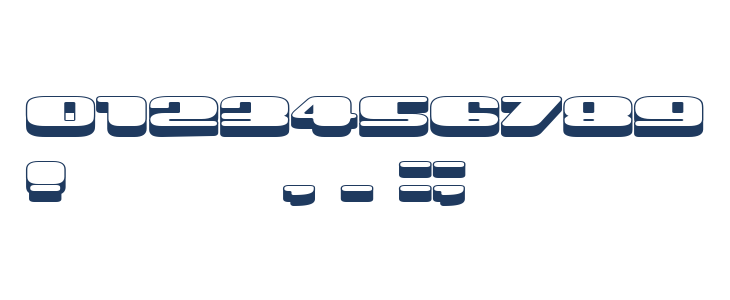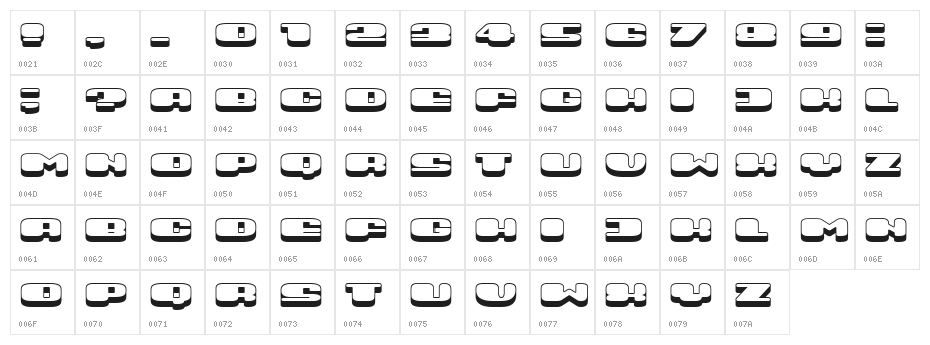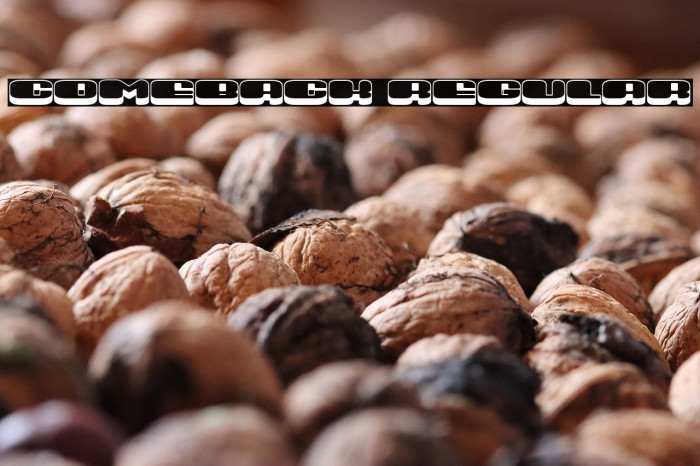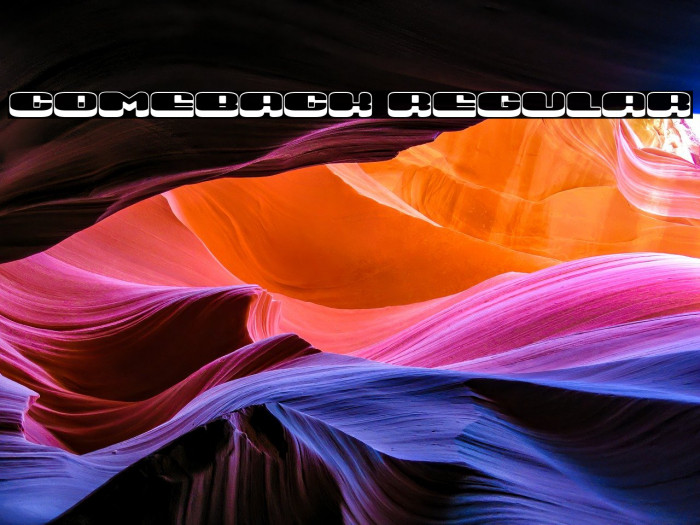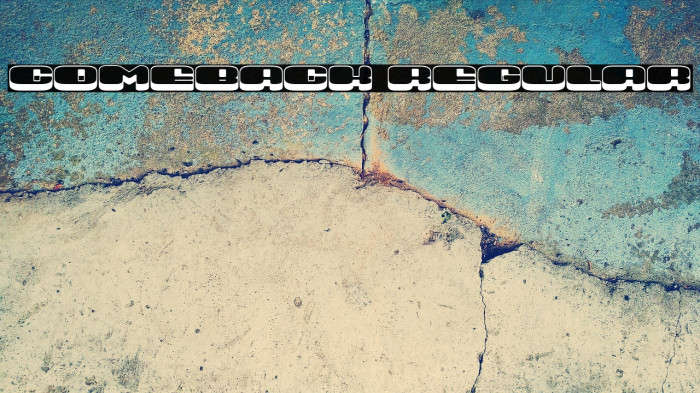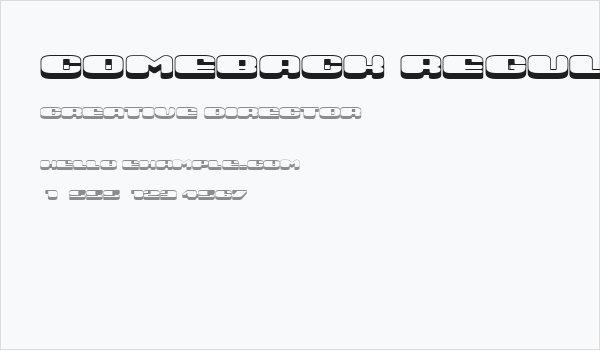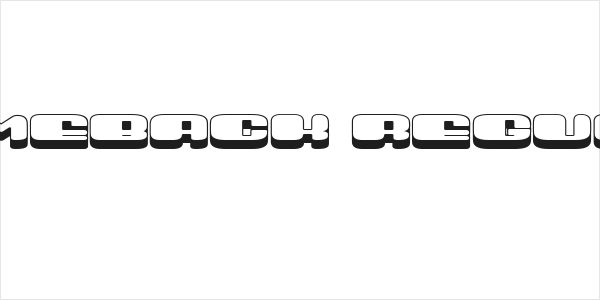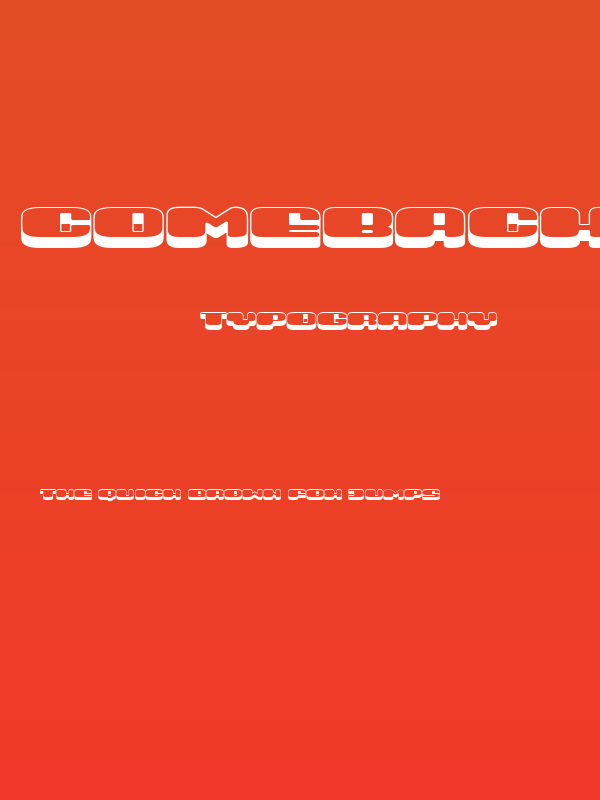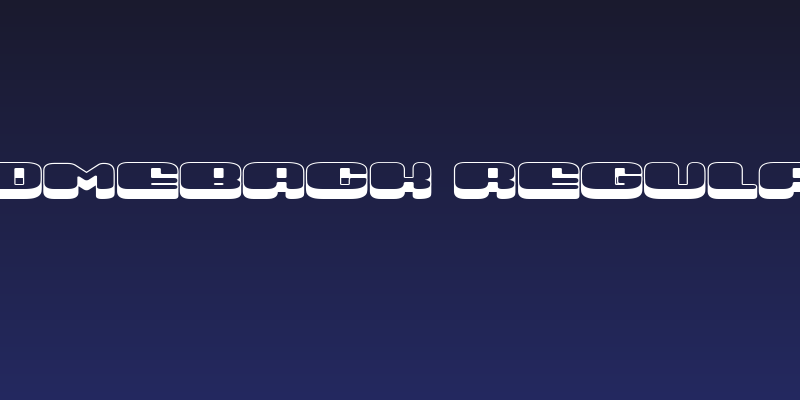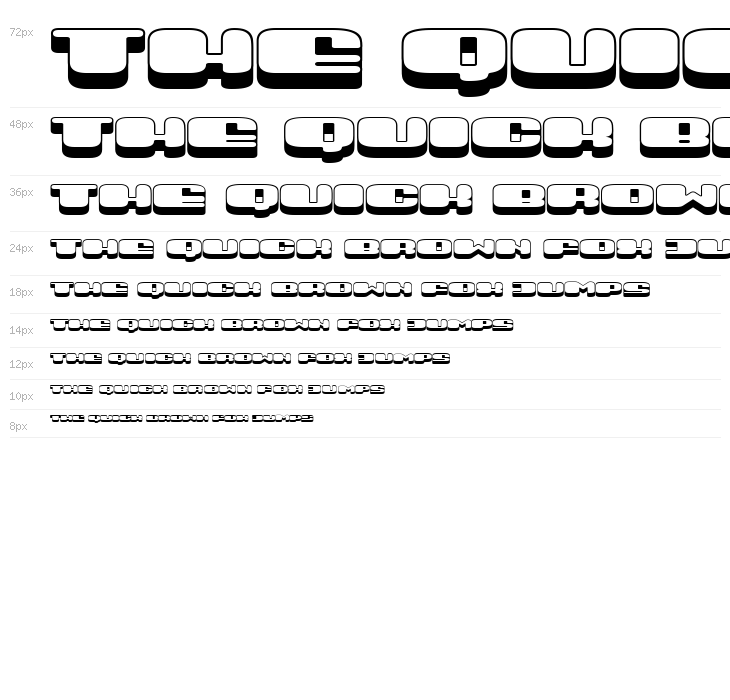
Comeback Regular Font
Comeback Regular Description
This font features a bold, rounded design with a three-dimensional effect that gives each character a sense of depth and volume. The letters are wide and have a playful, cartoon-like appearance, making them stand out with a unique style. The characters are uniformly spaced, contributing to a cohesive and balanced look. The numbers and special characters maintain the same bold and rounded aesthetic, ensuring consistency across all elements. This font's distinct style makes it suitable for eye-catching designs.
| Overall Style | Playful, Modern |
| Proposed Projects | Ideal for children's books, comic titles, playful branding, and eye-catching posters. |